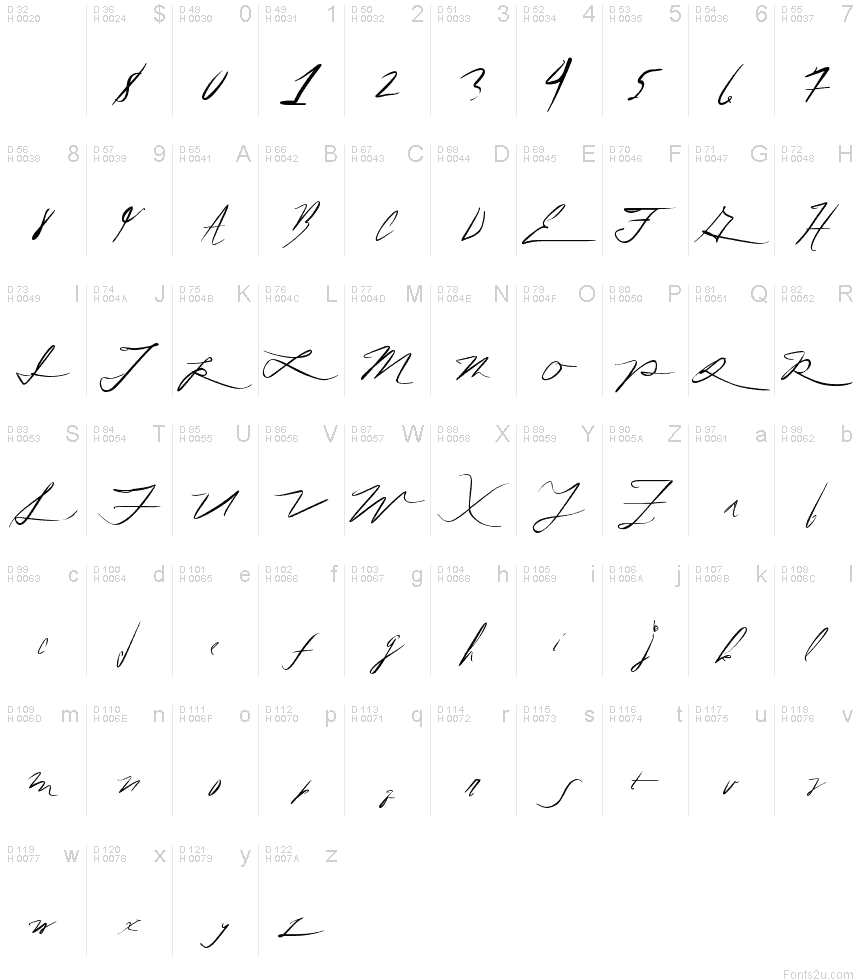
Fifty Hours from Xerographer Fonts is a free handwritten font shaped like an oversized, unruly signature. Its thin strokes race through tall loops, sudden angles, and sweeping crossbars that stretch far beyond the main letters. The writing feels deliberately hard to contain.
Album artwork is its strongest setting, especially for experimental pop, punk, or fashion-minded releases, and the same restless line suits event posters and editorial spreads. On clothing labels and beauty packaging, its signature form can become the brand mark itself rather than ordinary product lettering.